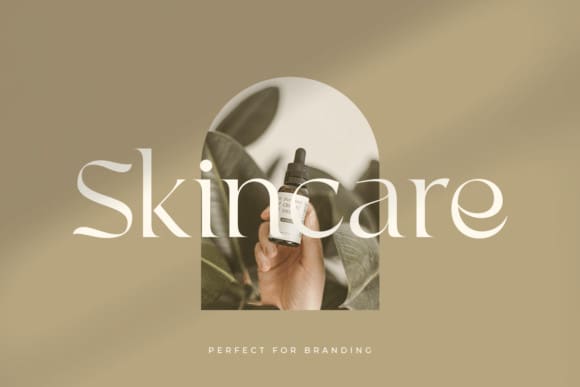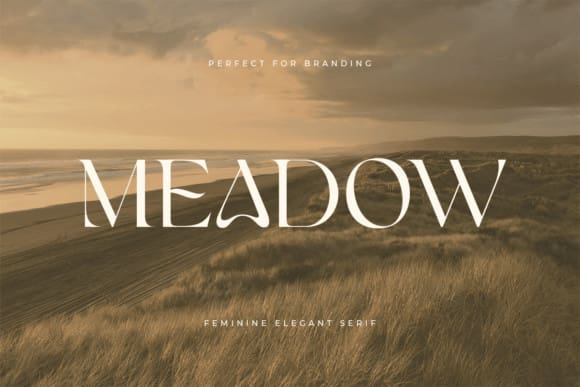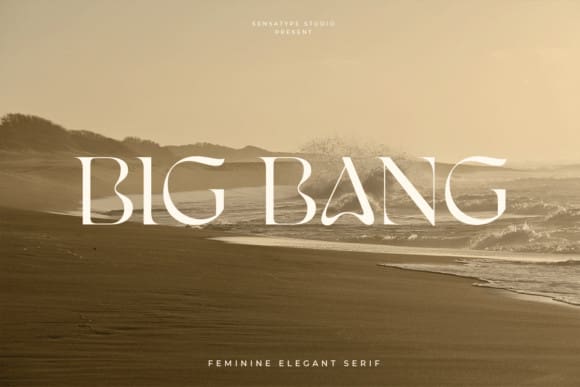
Big Bang Font
Big Bang Font is a beautiful and refined serif font. It has a classy, elegant and modern look that can be used for logos, branding, invitations, stationery, wedding designs, social media posts, and much more!